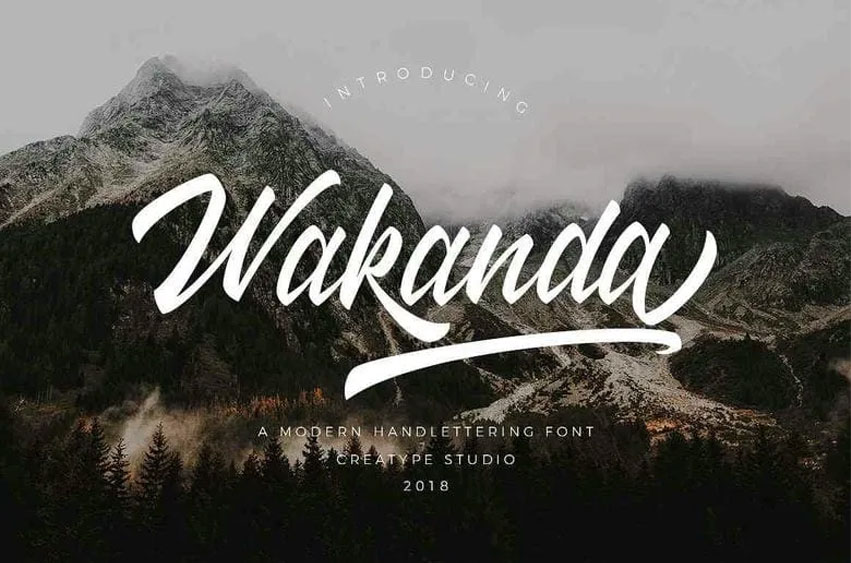
Wakanda Font seems that we save the best for last. It is our pleasure to present to you from Creatype Studio Co., Wakanda! drops mic!
Wakanda is unique and modern handletter script. contains 351 glyphs and alternate character contain with opentype features. Stylistic alternates, Swash Alternates, Ligature Created feel good combination.
Wakanda font can be used in various ways such as titles, signatures, logotypes, t-shirt designs,wedding invitations,flyers,banner ads.magazine covers,and any design project.